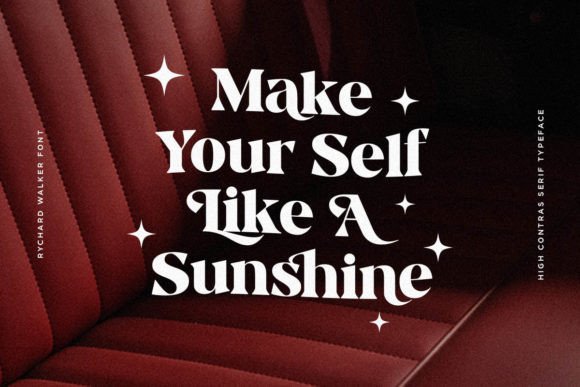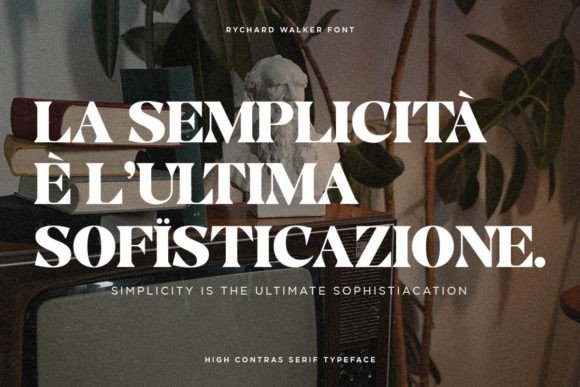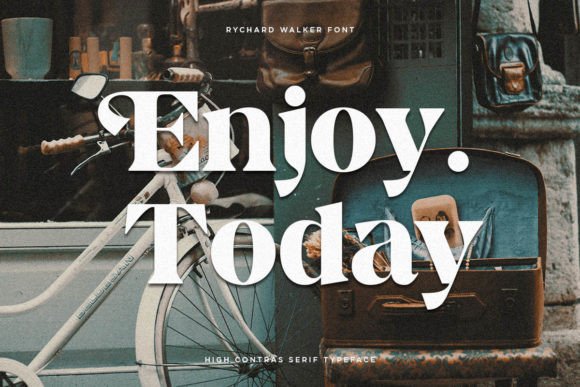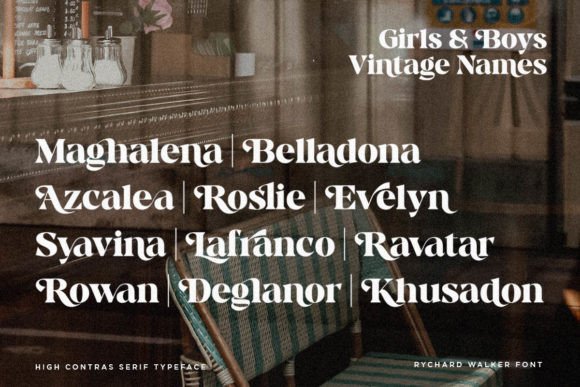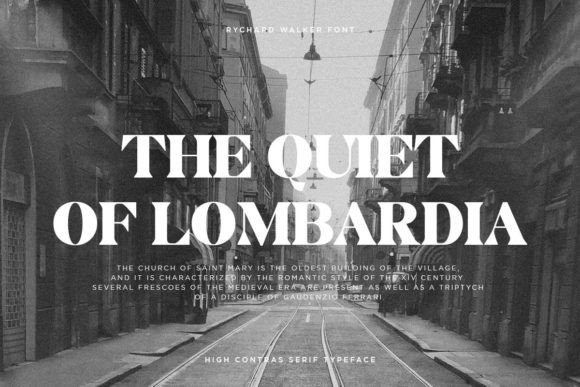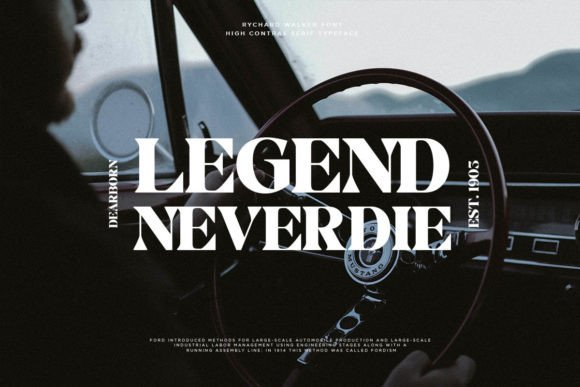
Introduction to Rychard Walker Font
Have you ever found yourself staring at a blank canvas, searching for the perfect font to bring your creative project to life? It’s that moment when you need a design resource that speaks to you, something that adds a touch of elegance and playfulness to your work. For designers, finding the right font can be a game-changer.
That’s where the Rychard Walker Font comes in – a high-quality, bold and stylish serif font that exudes a cheerful personality. Its unique blend of playful characters and elegant touch makes it an excellent choice for designers looking to elevate their creative projects. With its PUA encoding, accessing all the glyphs and ligatures is a breeze, allowing you to customize your design with ease.
Whether you’re working on a design project with a transparent background or simply looking for a free download to add some personality to your work, the Rychard Walker Font is a valuable resource that’s sure to impress.
Key Features of Rychard Walker Font
- High-quality, professional font designed for creative projects
- Transparent background, making it ideal for use on images and designs with complex backgrounds
- Unique, hand-crafted design with a personal touch, making it perfect for adding a creative twist to your projects
Honest Review: Rychard Walker Font
I recently had the opportunity to work with the Rychard Walker Font, and I must say it’s been a game-changer for my creative projects. The high quality of this font has elevated my designs to a whole new level.
One of the standout features of this font is its versatility. It’s perfect for a wide range of creative projects, from logos to typography-based art. The transparent background also makes it easy to customize and use in different contexts.
Here are some of the things that work well with the Rychard Walker Font:
- ✨ High-quality design: The font is well-crafted and looks great in both print and digital formats.
- ✨ Versatile: Suitable for a variety of creative projects, including logos, typography-based art, and more.
- ⚠️ Limited character set: The font only includes a limited set of characters, which may not be suitable for projects that require a wide range of symbols or languages.
- ⚠️ Not ideal for small text: The font may not be the best choice for small text or fine typography, as it can be difficult to read.
Overall, I’m really impressed with the Rychard Walker Font. It’s a great addition to any designer’s toolkit, and I highly recommend it for creative projects that require high-quality typography.
The Rychard Walker Font is a high-quality, free design resource ideal for creative projects. Its unique style and transparent background make it a versatile design element.
To maximize the effectiveness of the Rychard Walker Font, use it in creative projects where its unique style can shine. Some common use cases include:
- Typography-based designs
- Web design elements